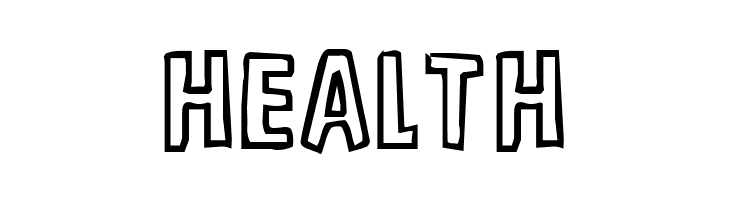
A rugged, distressed stencil font with a bold, industrial look.
A bold, outlined font with a modern, playful aesthetic and geometric design.
A bold, 3D stone-like font with a rugged, cracked appearance.
A sketch-like, hand-drawn font with irregular lines and dynamic strokes.
A bold, medieval-inspired font with sharp, angular characters and a historical aesthetic.
A bold, geometric font with a 3D offset shadow effect.